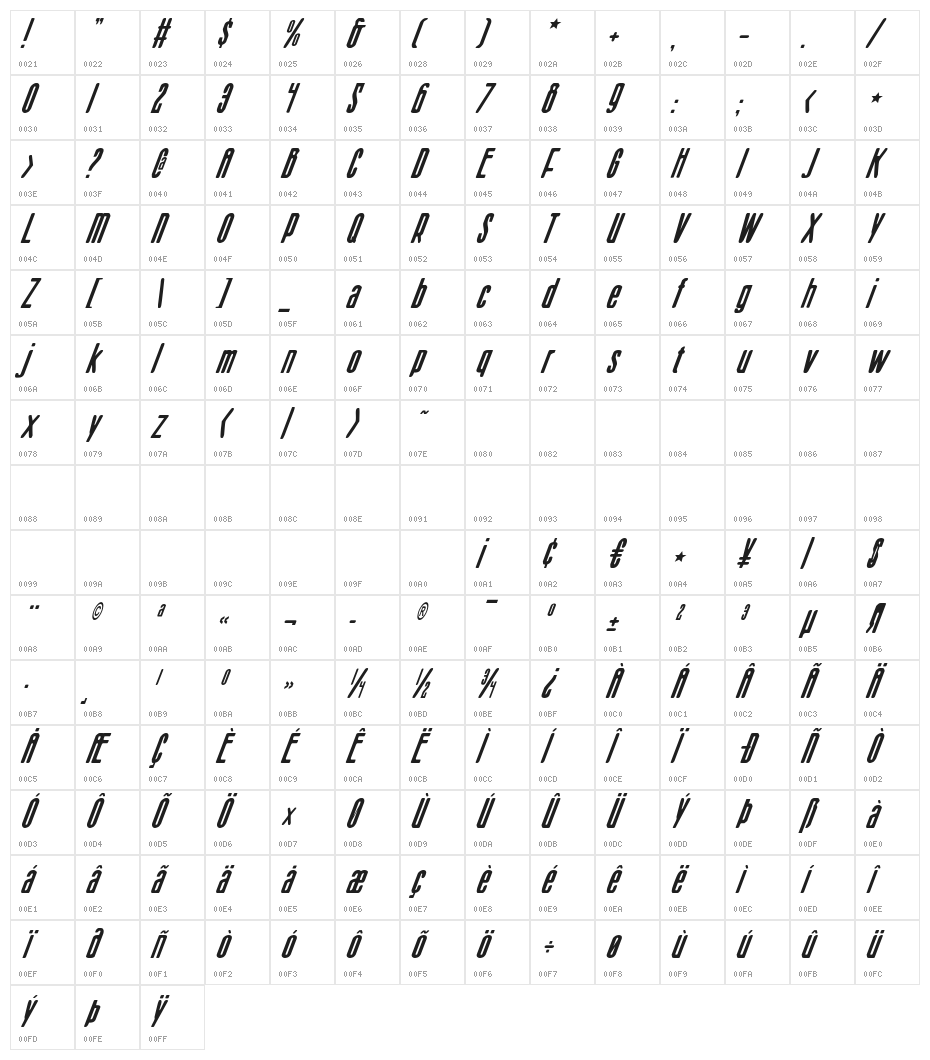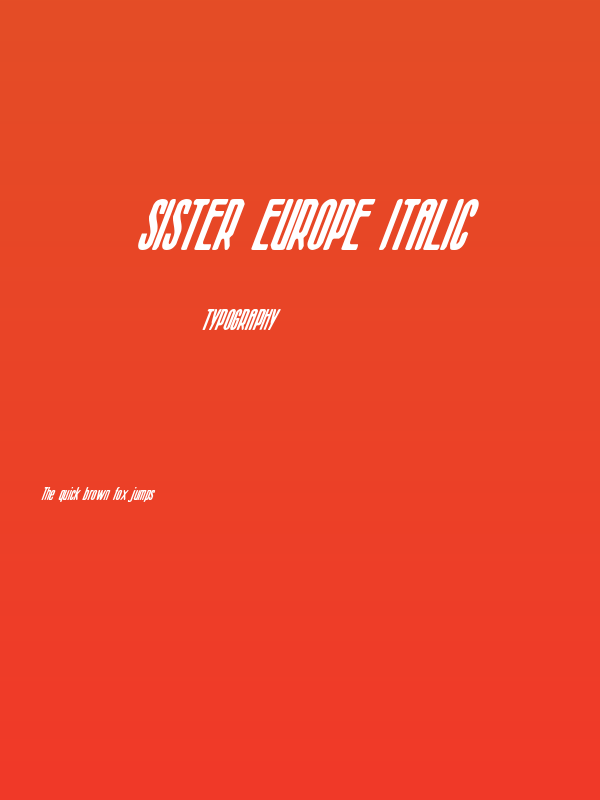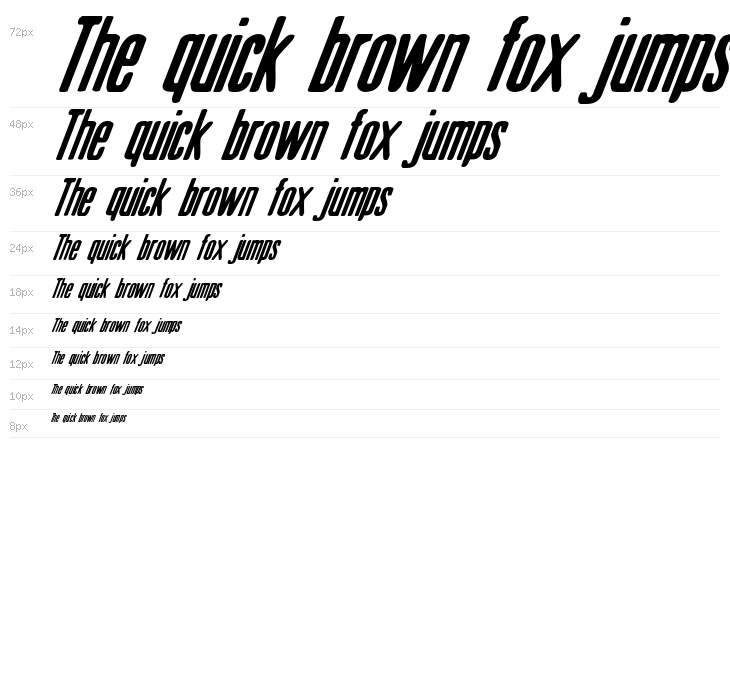
Sister Europe Italic Font
Sister Europe Italic Description
This font features a dynamic and energetic italic style with a strong forward slant, giving it a sense of motion and urgency. The characters are bold and condensed, with a modern flair that makes them stand out. The uppercase and lowercase letters maintain a consistent style, with sharp angles and clean lines that enhance readability. The numerals and special characters are designed to match the overall aesthetic, providing a cohesive look across all elements. This font's distinctive style is ideal for creating eye-catching designs that demand attention.
| Proposed Projects | Ideal for sports branding, dynamic posters, modern advertisements, and any project requiring a bold statement. |